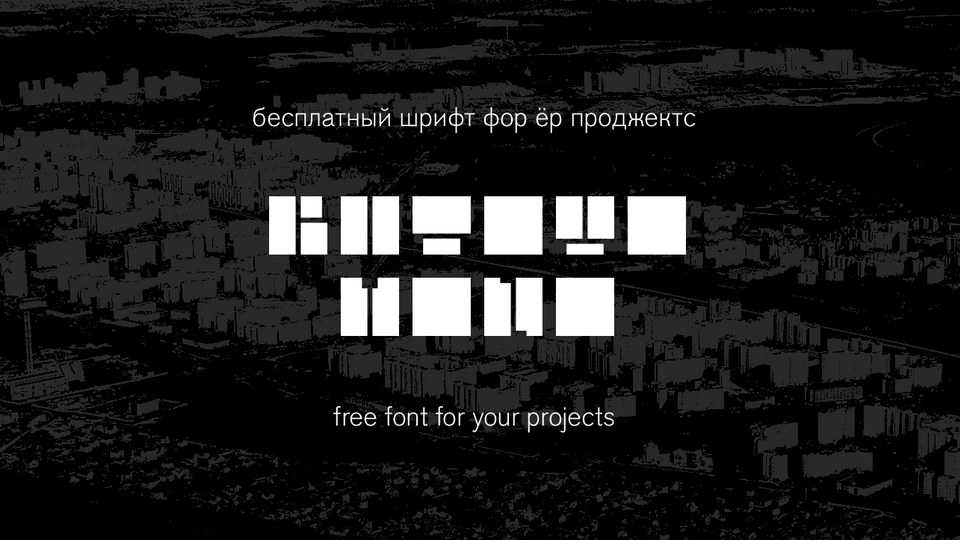
Download Butovo Mono font, a strong and heavy modular display typeface inspired by the panel constructions. With its geometric shapes based on the grid, Butovo Mono is ideal for posters, album artworks, typography compositions and other display use.